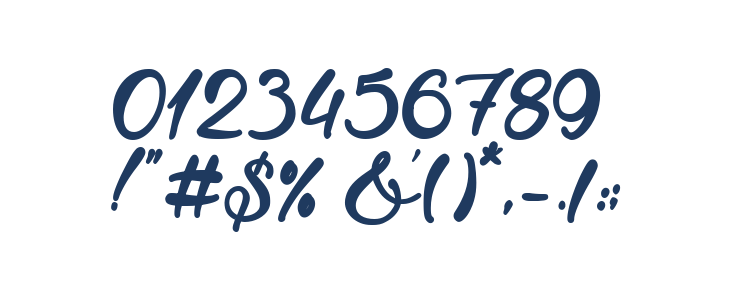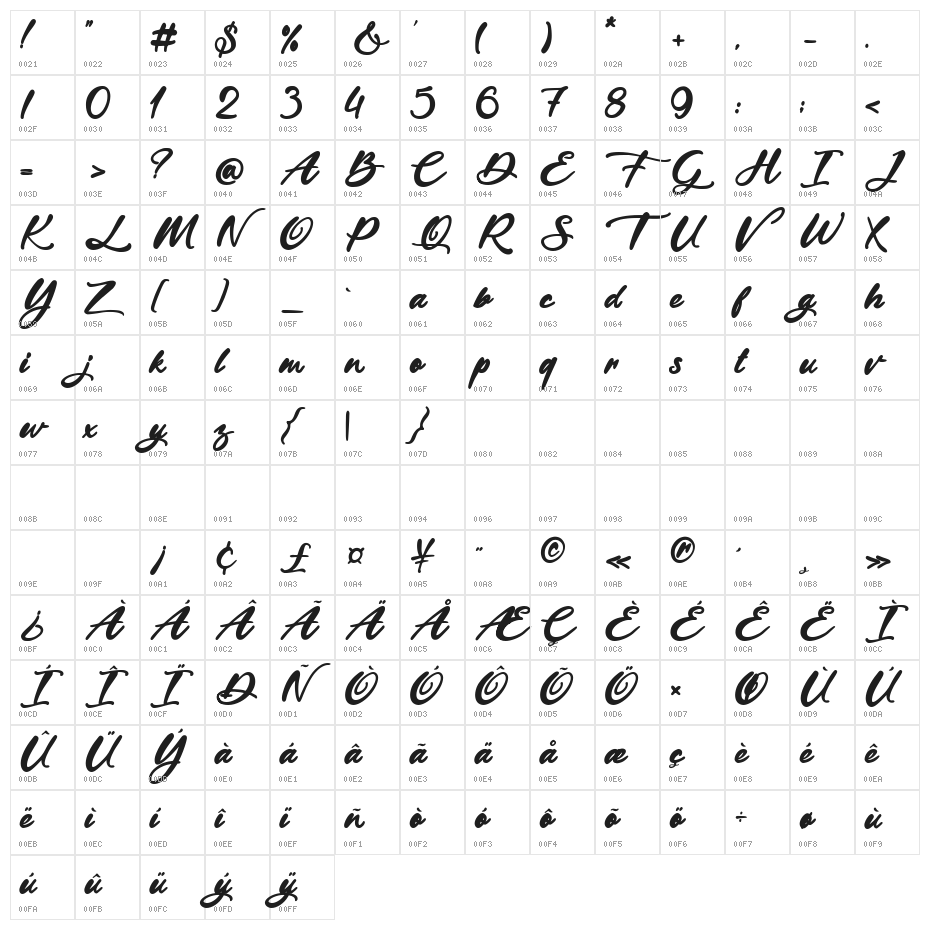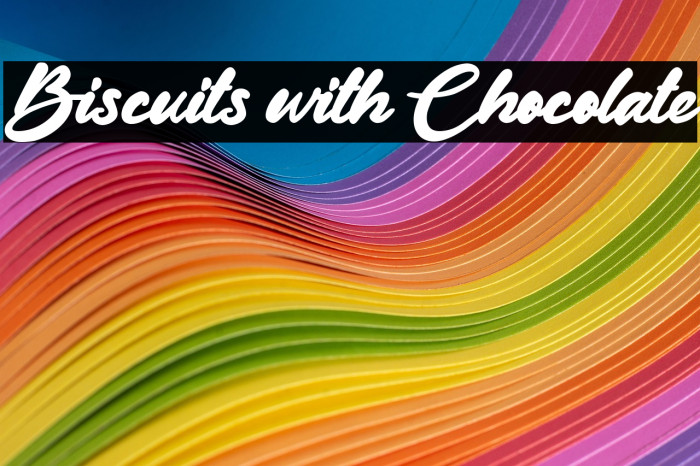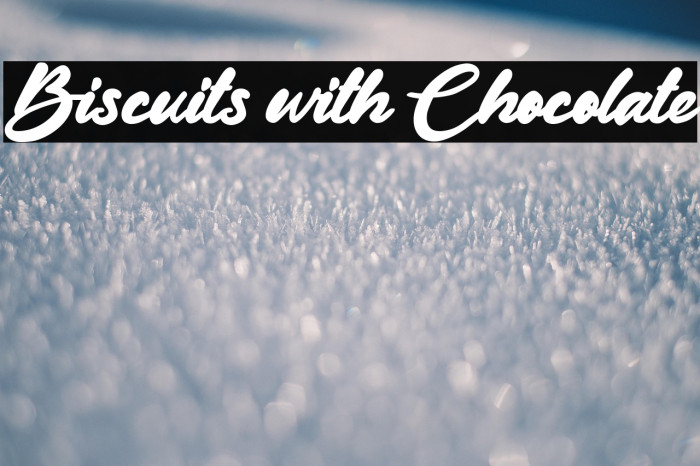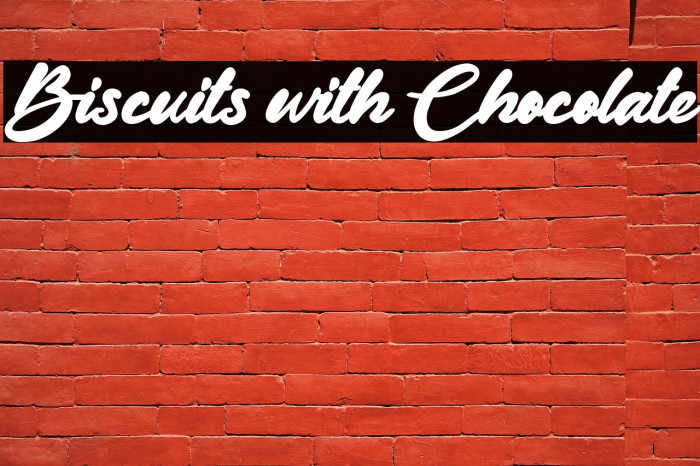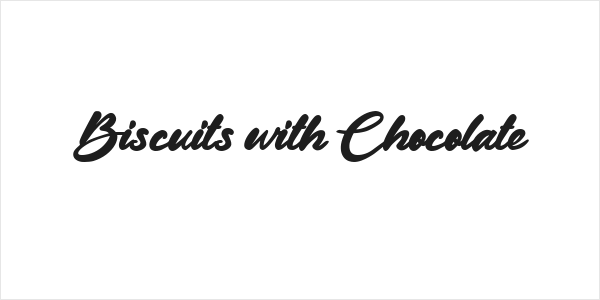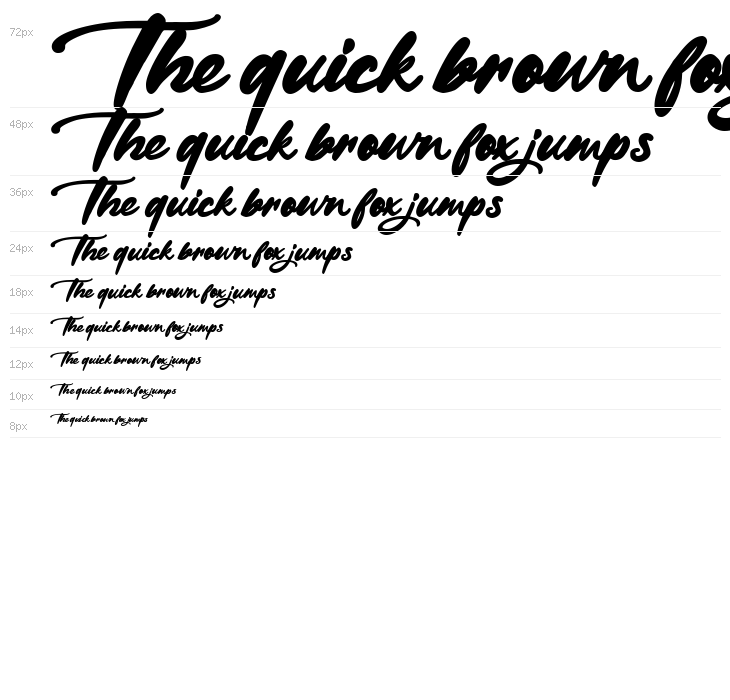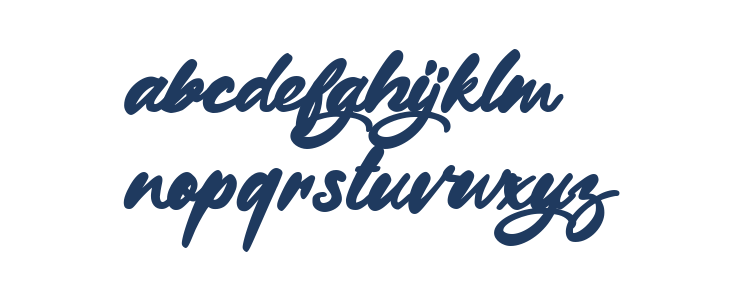
Biscuits with Chocolate Font
Biscuits with Chocolate Description
This font features a bold, cursive style with a playful and dynamic flow. The letters are interconnected, creating a sense of movement and continuity. The uppercase letters are slightly more elaborate, with decorative flourishes that add a touch of elegance. The lowercase letters maintain a consistent style, with smooth curves and rounded edges. The numbers are bold and clear, matching the overall aesthetic of the font. Special characters are included, maintaining the same playful and bold characteristics. This font is ideal for projects that require a personal and friendly touch.
| Proposed Projects | Ideal for greeting cards, invitations, branding, and social media graphics. |